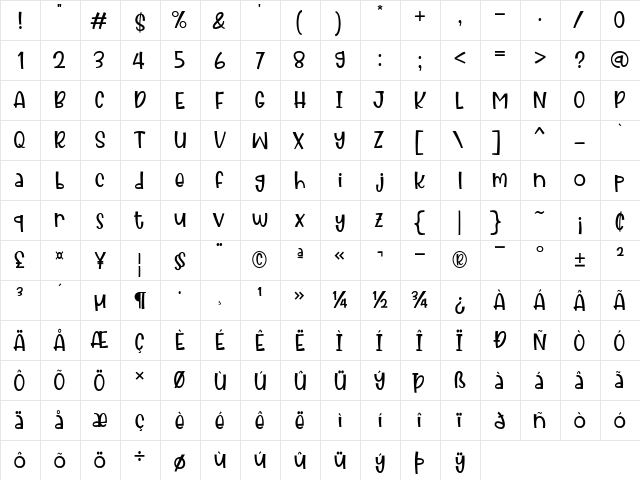
Jolly Rainbow Regular
| Foundry | 7NTypes |
| Designer | Dreamink; Dani; Situjuh Nazara |
Design Context for Jolly Rainbow Typeface
Jolly Rainbow is a composed and adaptable typeface that performs quietly and consistently across a wide range of design contexts.